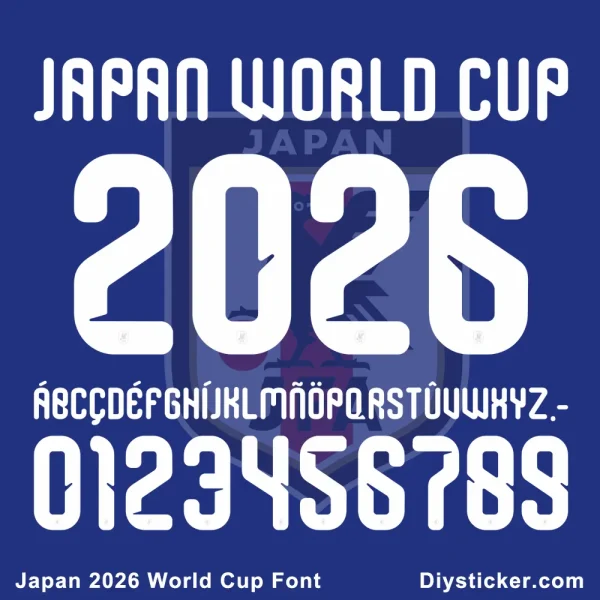
Celebrate the excitement of the upcoming tournament with the Japan 2026 World Cup Font. Inspired by modern Japanese typography and global sports aesthetics, this font set is ideal for designers, content creators, and merchandise producers.
Perfect for:
Sports posters & banners
Custom jerseys & fan merchandise
YouTube thumbnails & social media graphics
Event branding & stadium signage
Features:
Uppercase A–Z
Numbers 0–9
Punctuation: . and –
Clean, bold, modern design